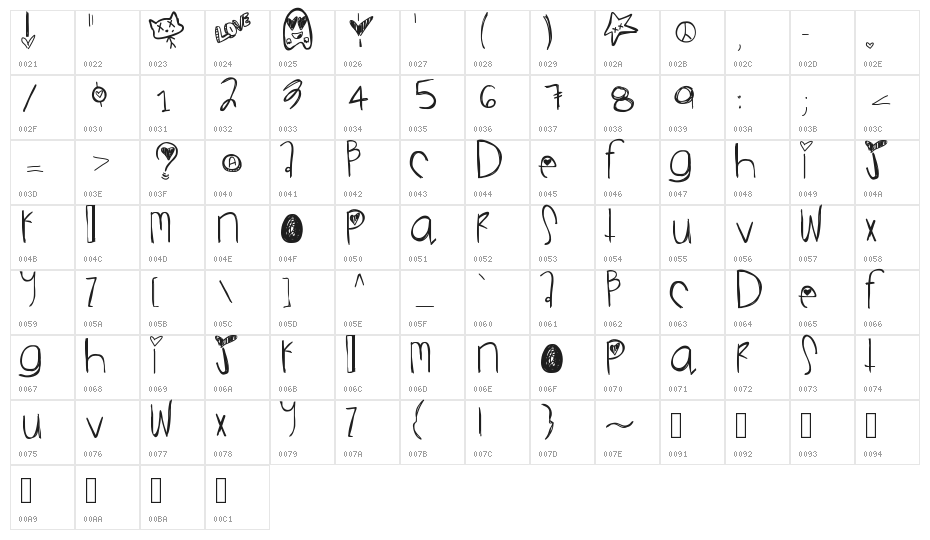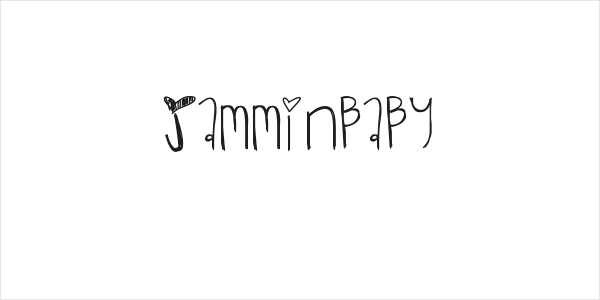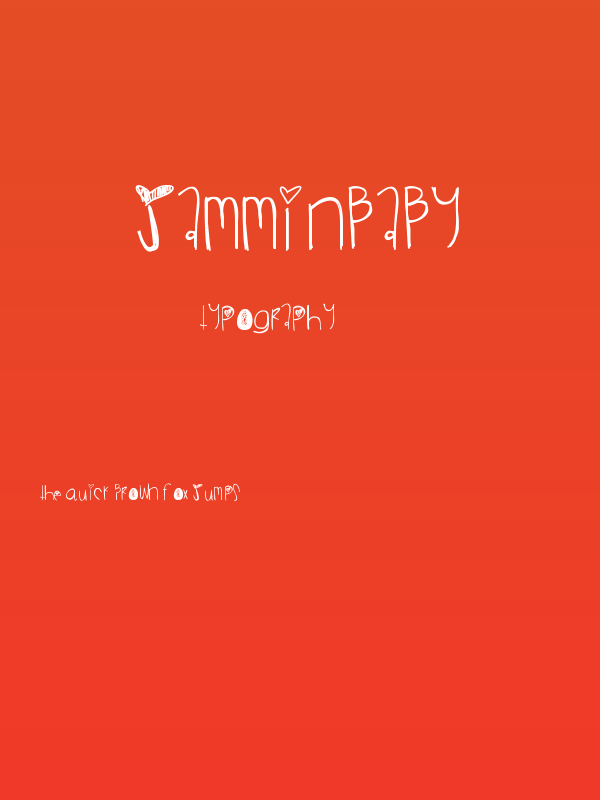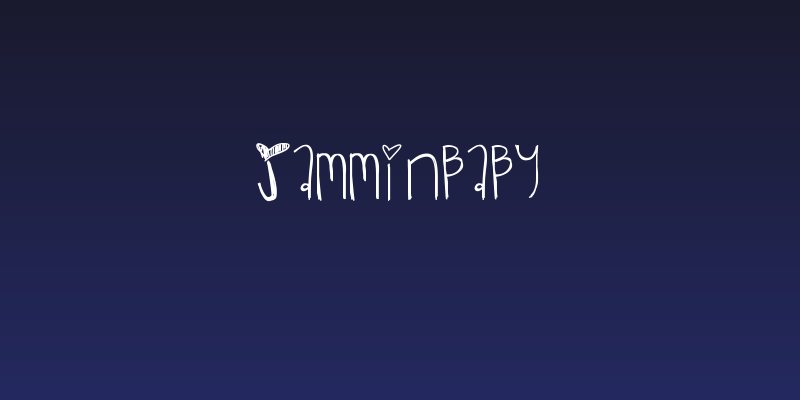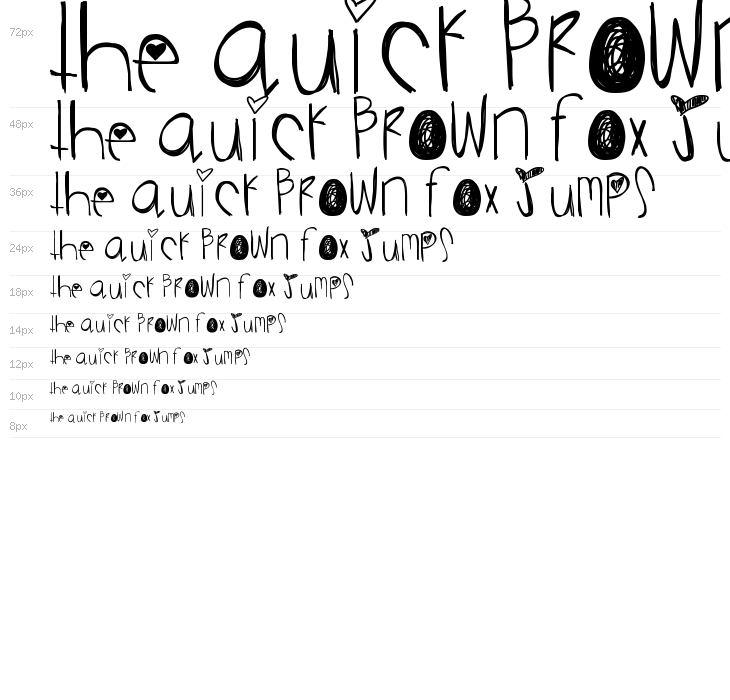
JamminBaby Font
JamminBaby Description
This playful and whimsical font features a handwritten style with quirky, uneven lines and heart embellishments on certain letters. The characters are tall and narrow, giving them a unique, elongated appearance. The font includes a mix of uppercase and lowercase letters, numbers, and a variety of special characters, each with its own distinct personality. The playful nature is further emphasized by the inclusion of doodle-like symbols such as hearts, stars, and expressive faces. This font exudes a sense of fun and creativity, making it perfect for projects that require a lighthearted and informal touch.
Proposed ProjectsIdeal for children's book covers, playful greeting cards, creative posters, and fun social media graphics.